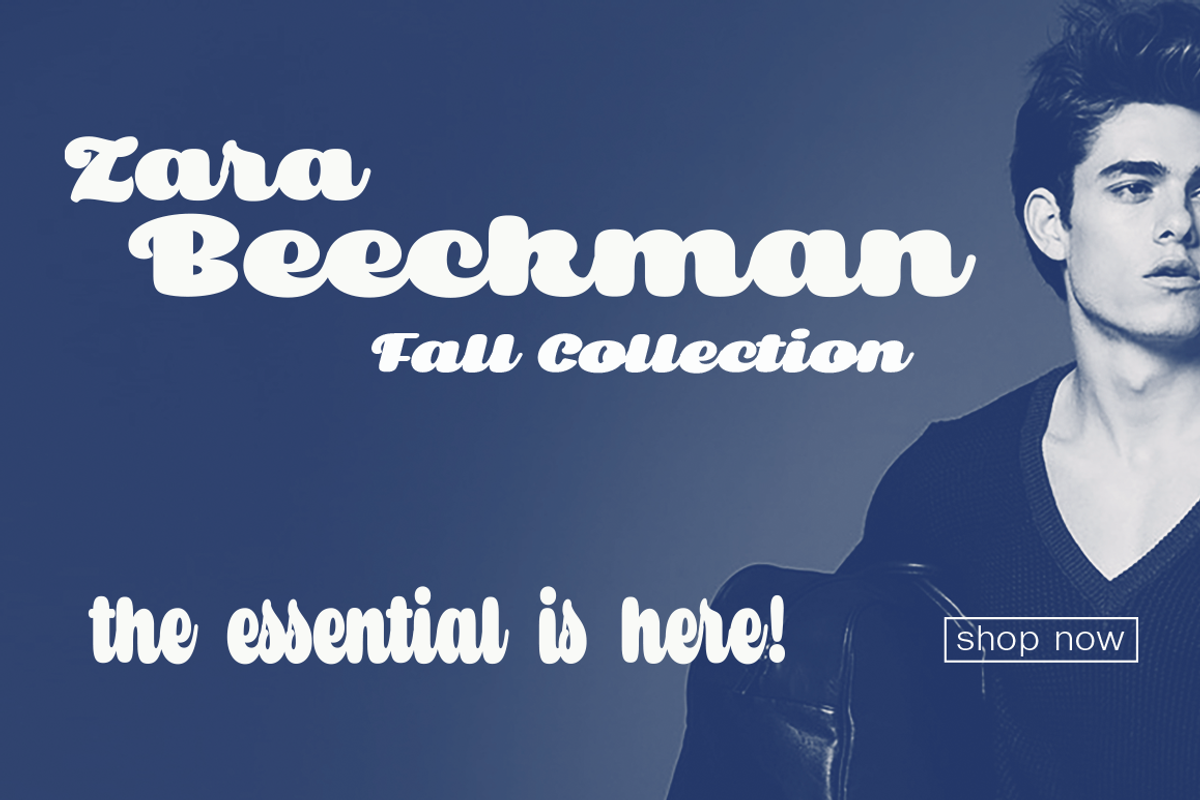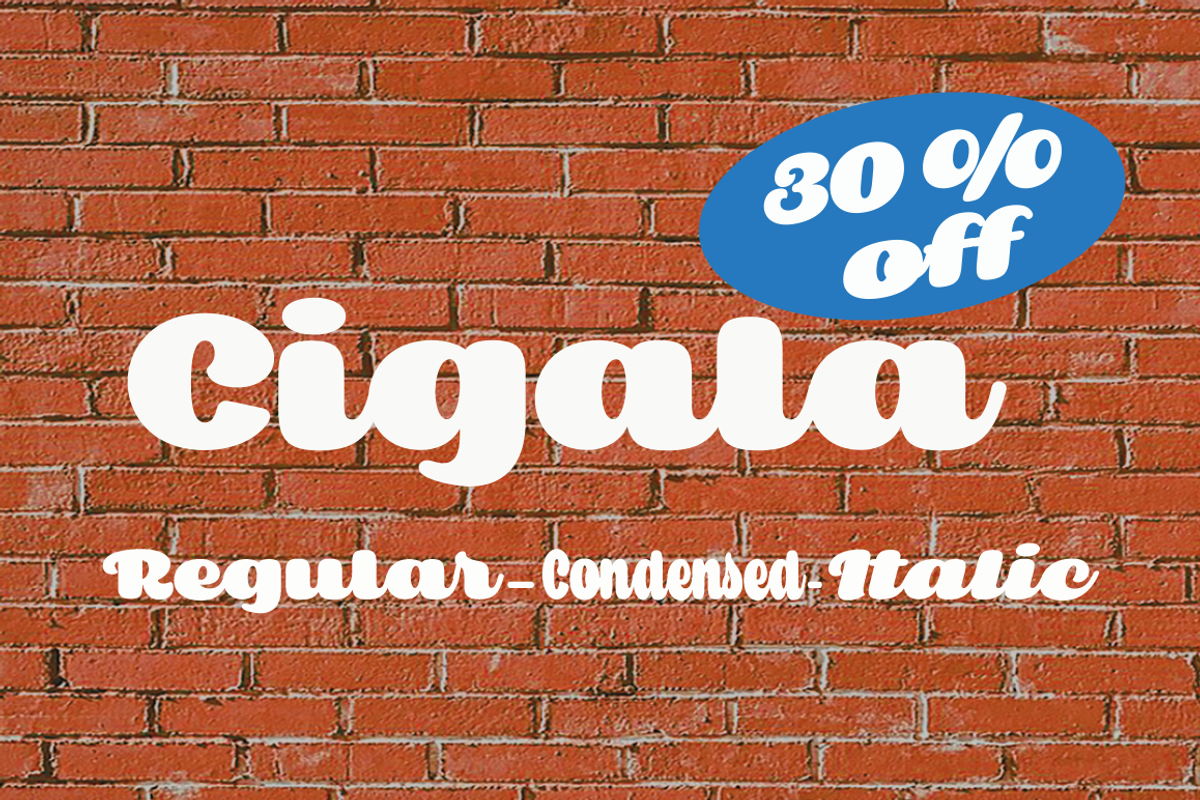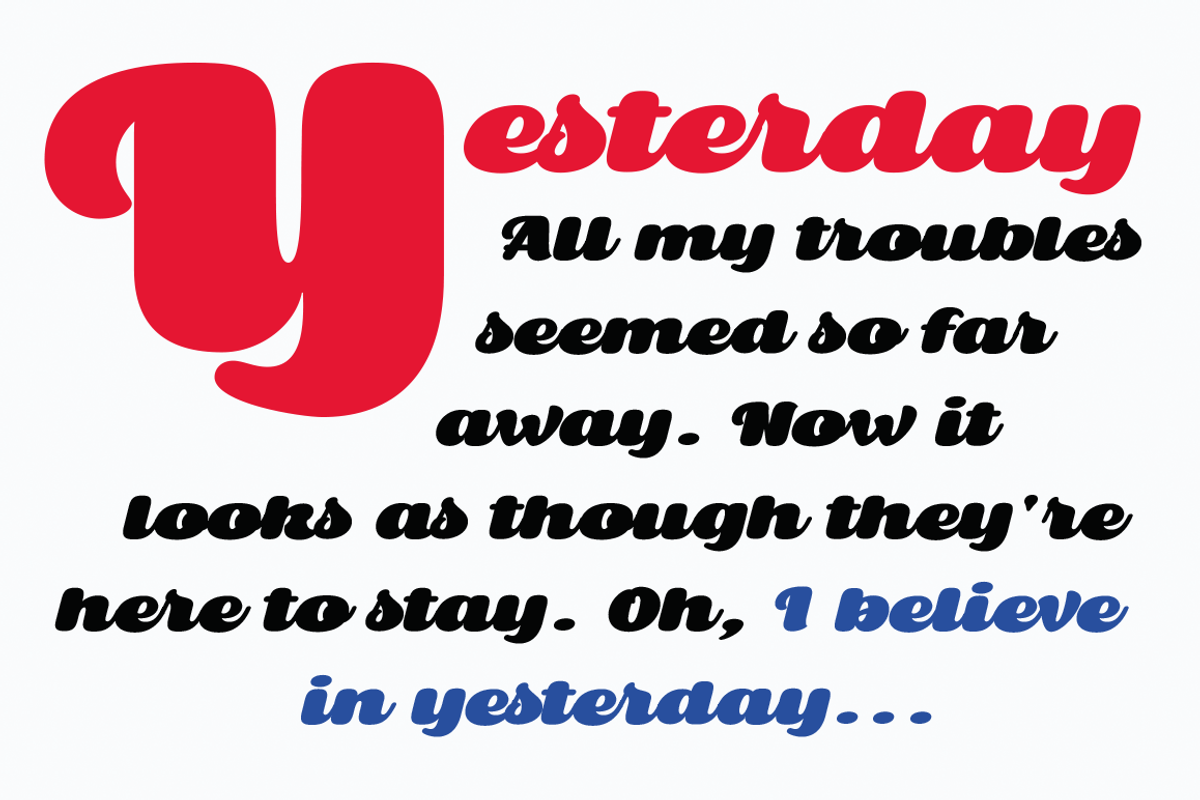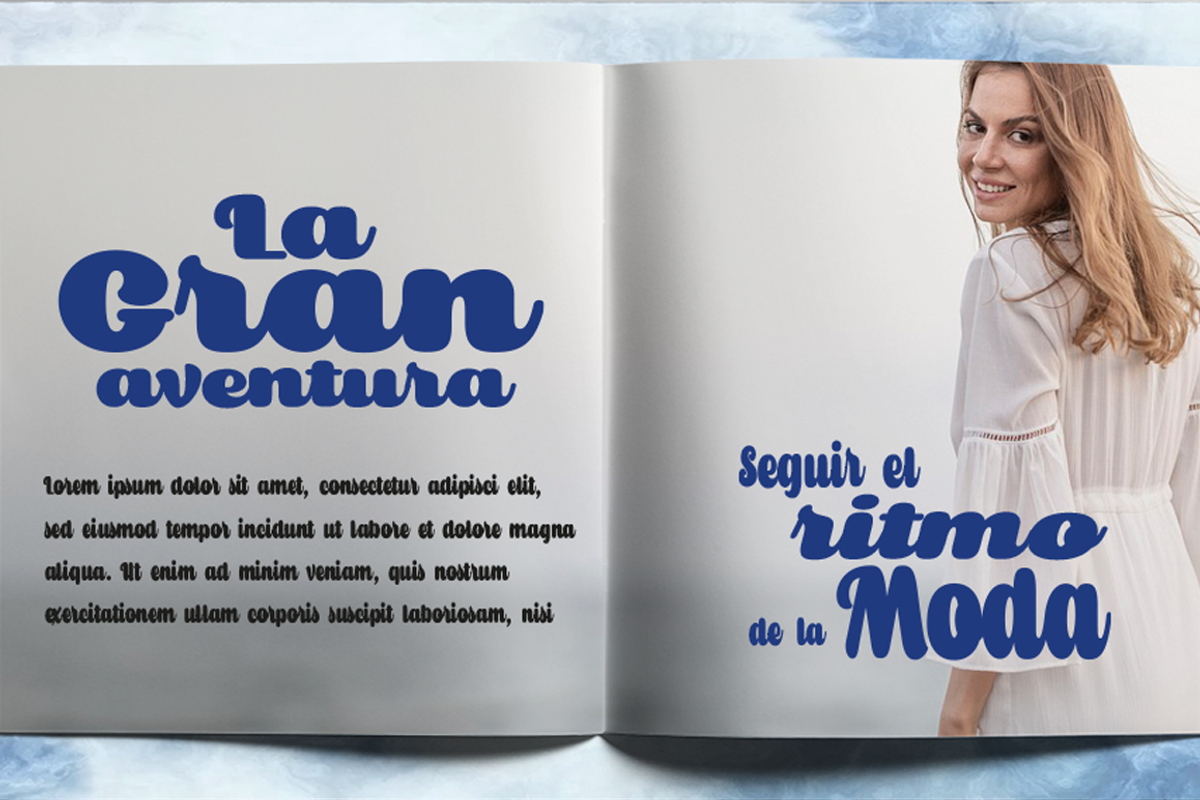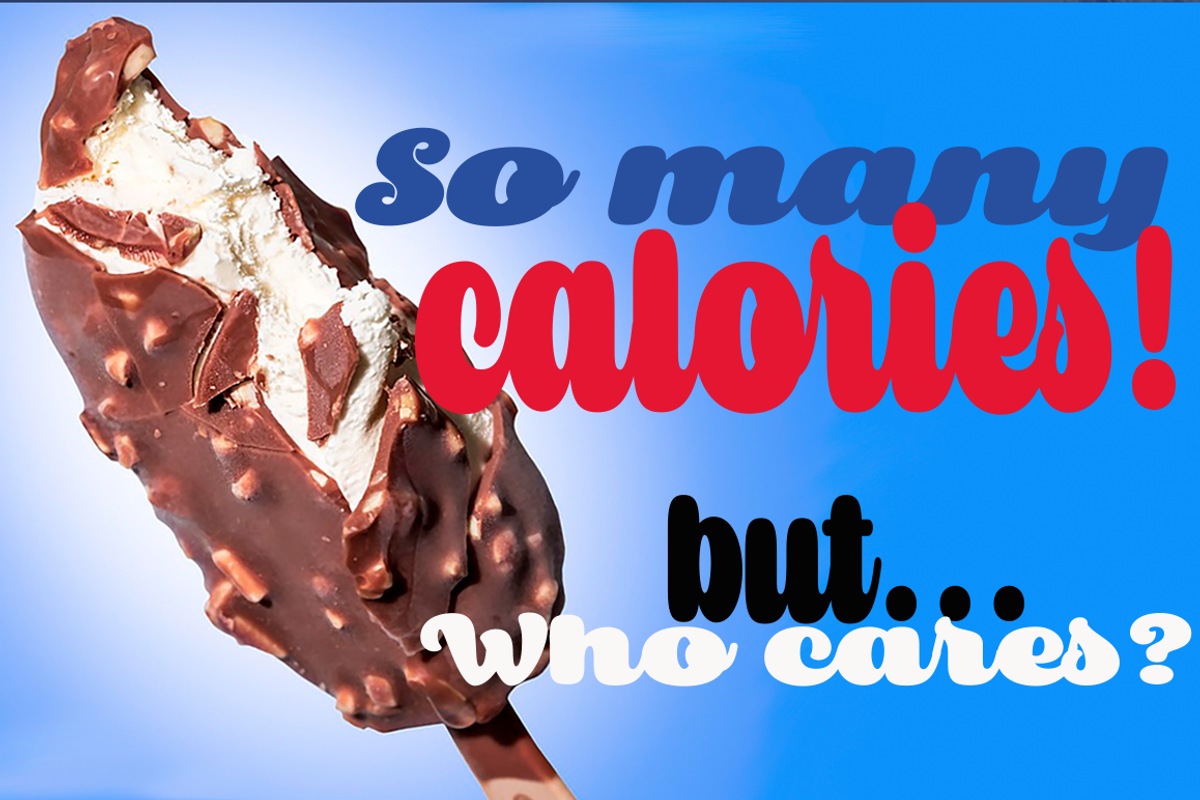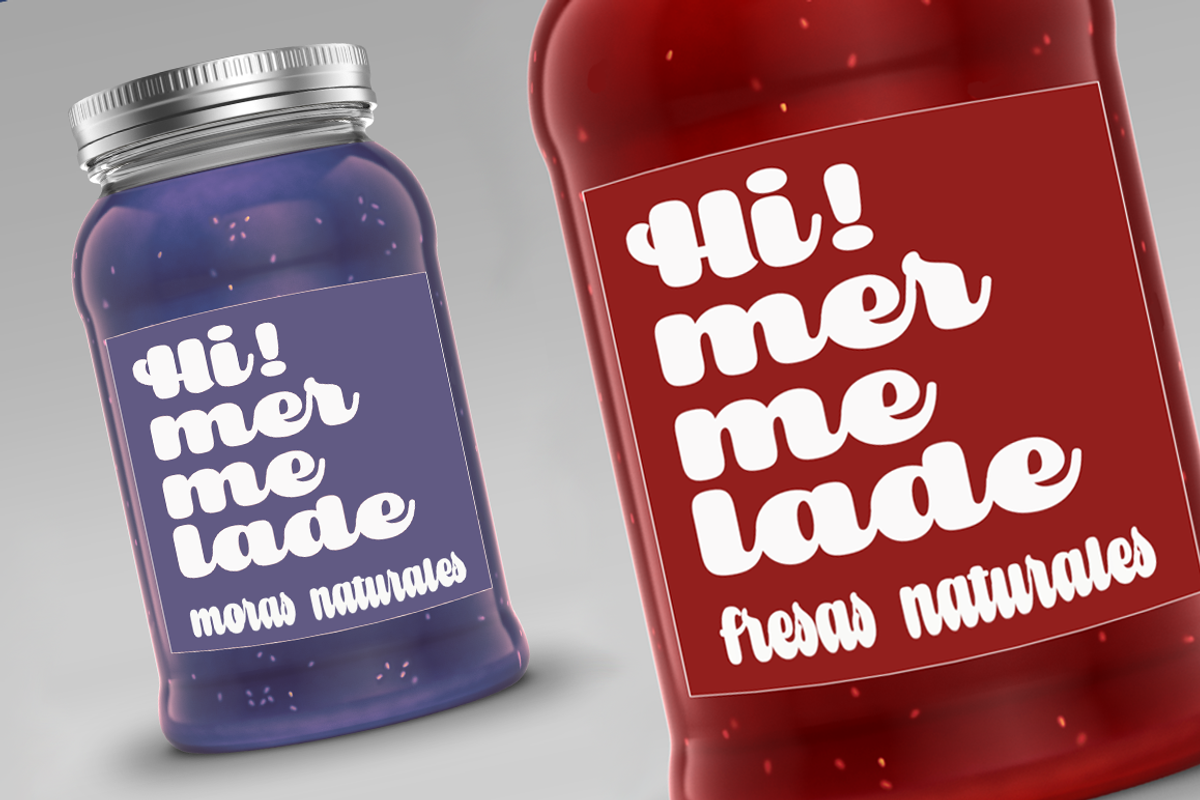
Cigala
Give your designs an authentic and vibrant touch with the Cigala font family!
Cigala is a hand-drawn, heavyweight font with an irresistible vintage charm. Its regular version is perfectly complemented by a condensed and italic version, forming a versatile and dynamic set.
Designed to offer maximum impact, Cigala has multiple OpenType features, such as a wide repertoire of ligatures that bring fluidity and naturalness to each word. Its evocative style is reminiscent of classic calligraphy, but with a warm and authentic touch that will make your creations shine. In addition, it includes support for Central European languages, adapting to any global project.
If you are looking for a font with personality for logos, packaging, labels, signs and headlines, Cigala is the perfect choice. Take your design to the next level with its unique character!